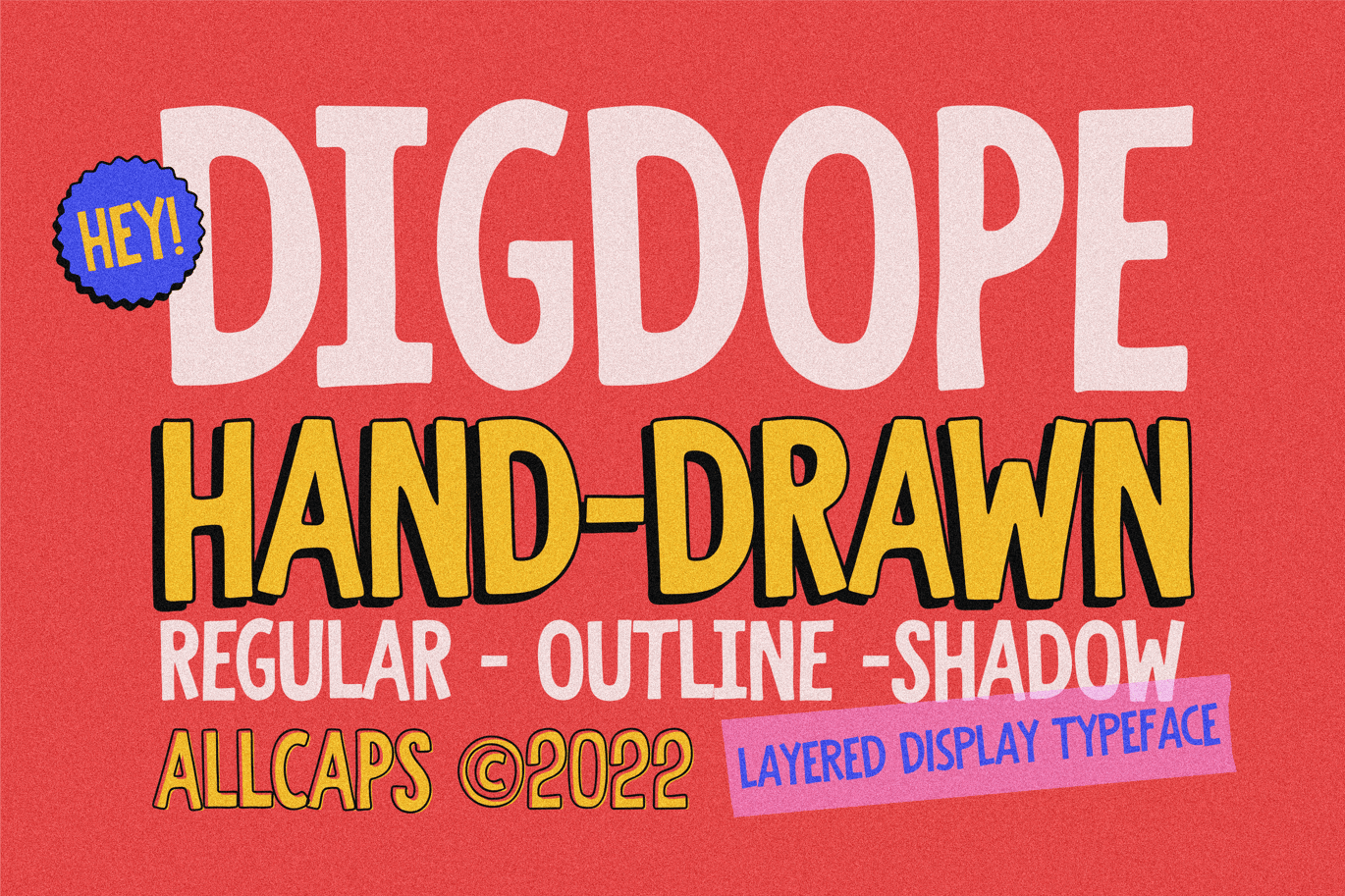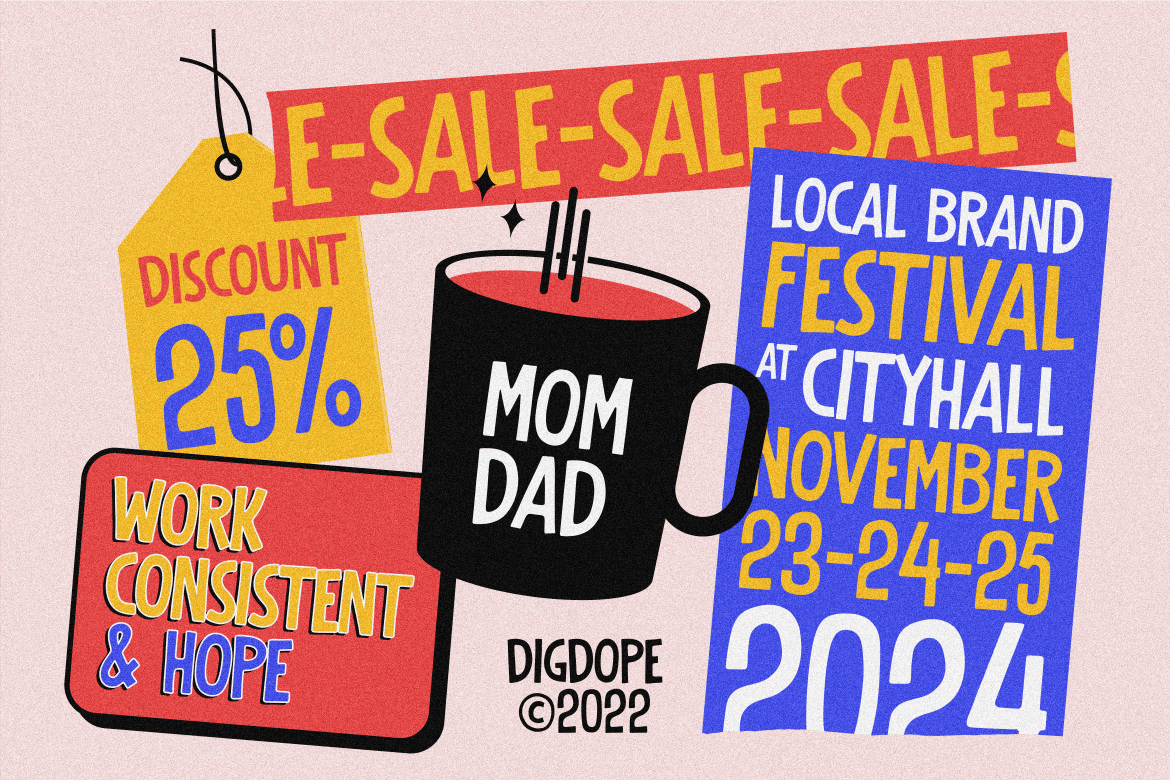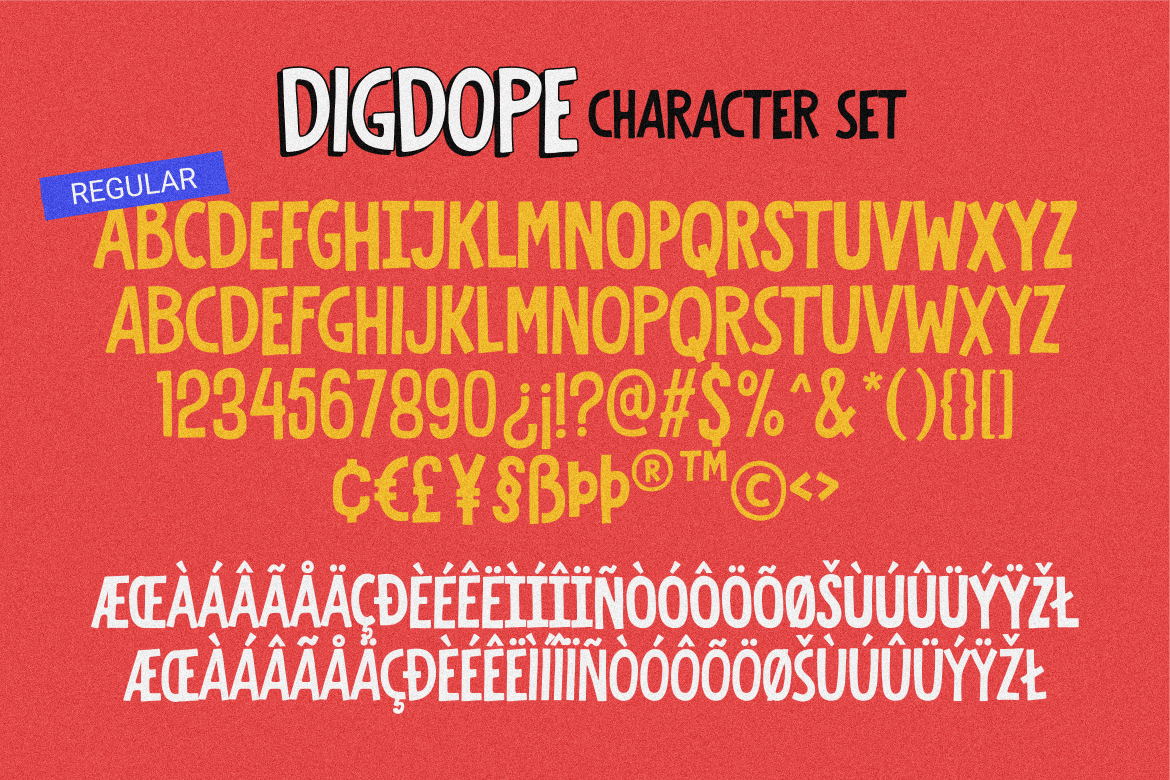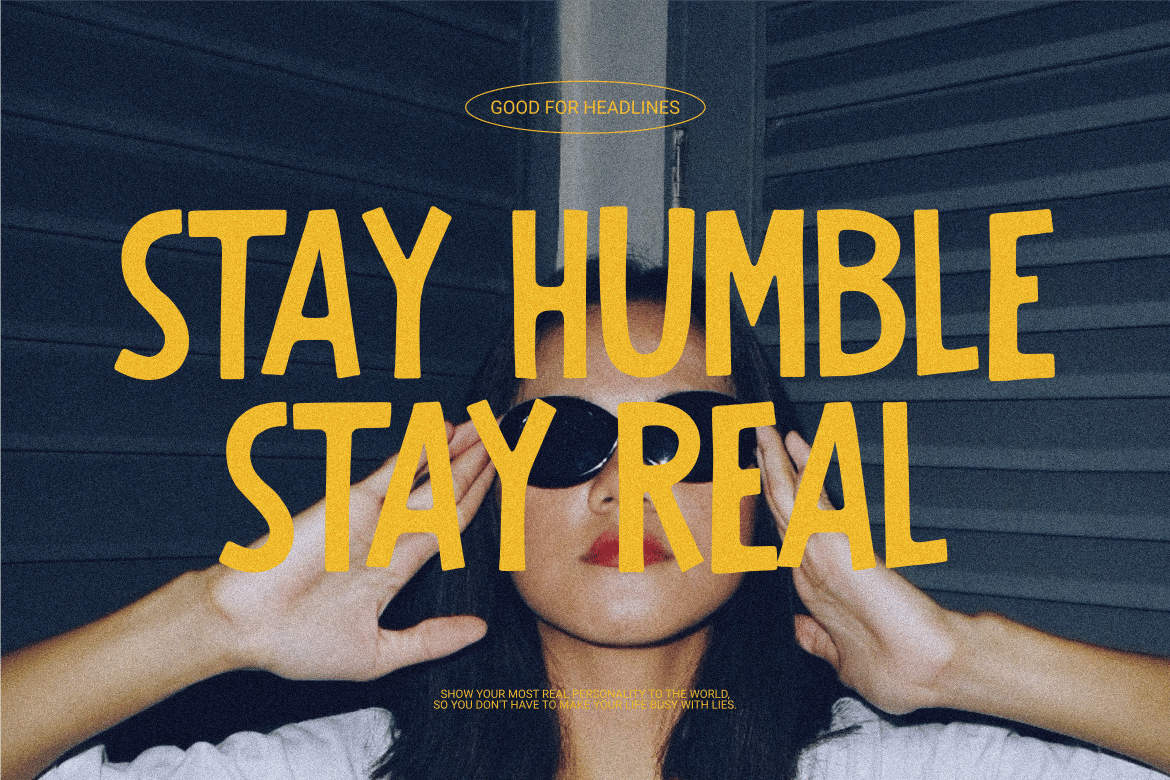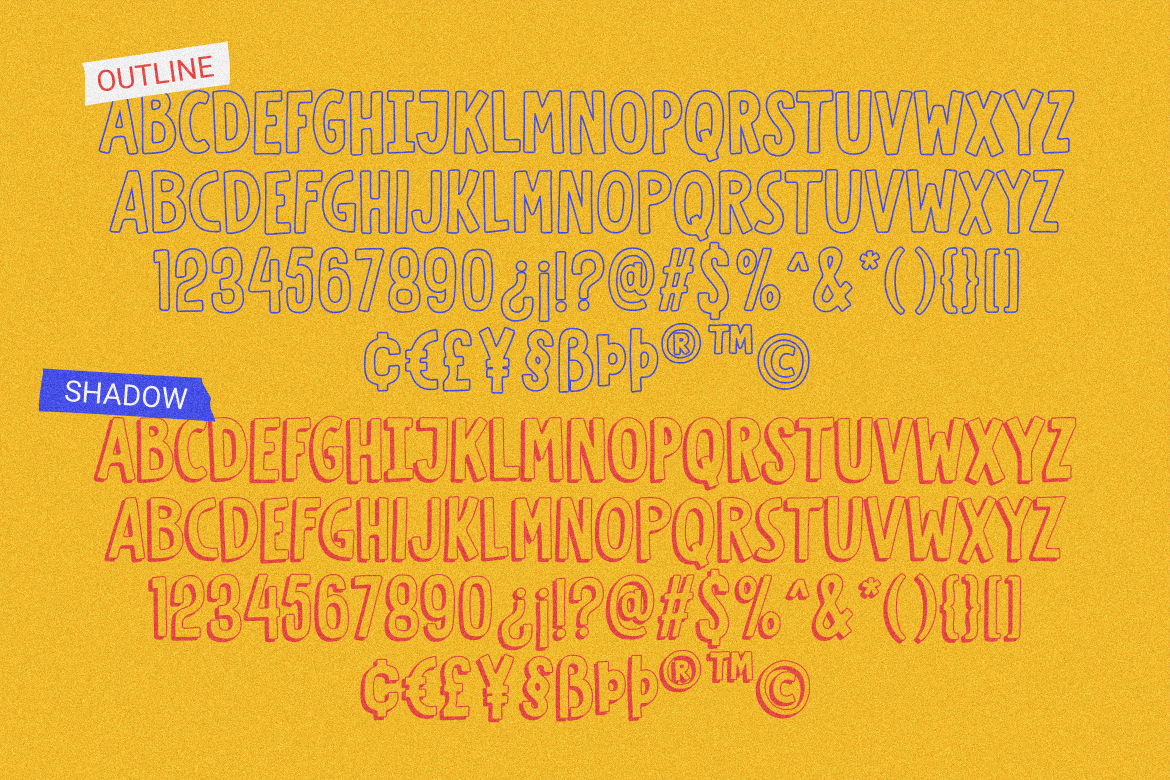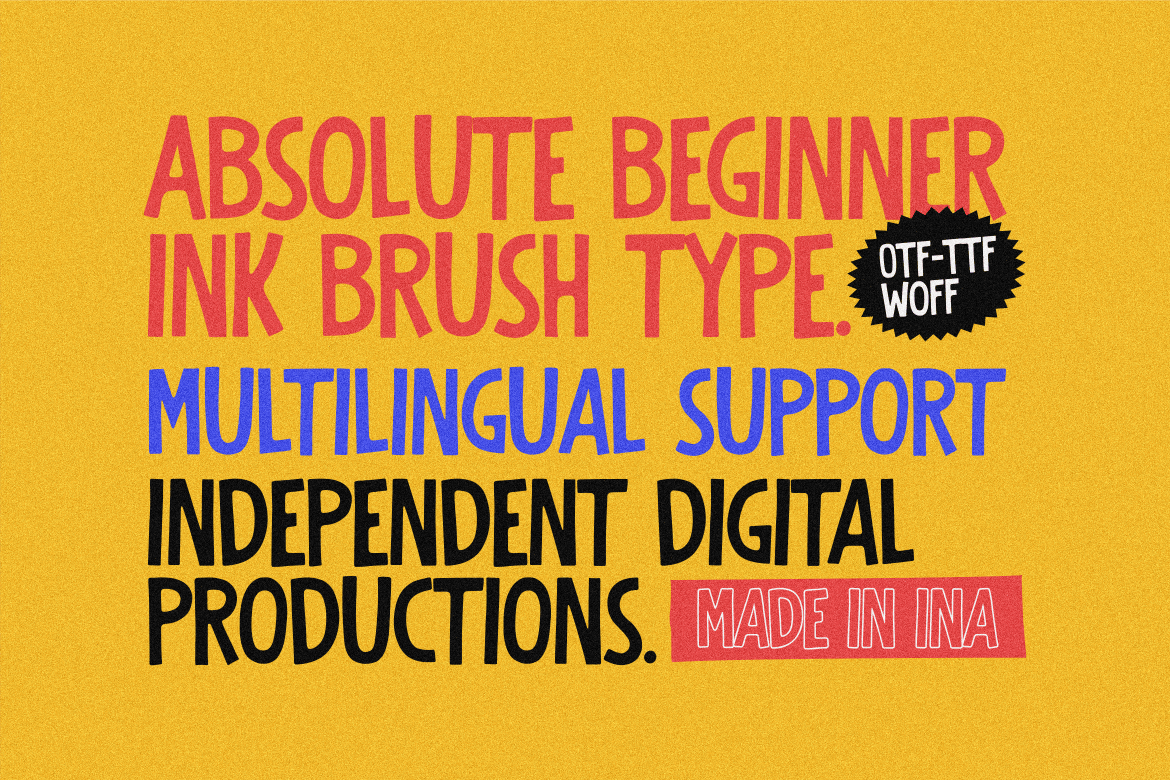
Digdope Typeface
Digdope is a fun and natural font like a handwritten sans font, so you will get a more realistic feel.
Digdope is a layered font available in three styles, REGULAR/NORMAL, OUTLINE &, SHADOW.
Perfect for branding, logos, posters, quotes, headlines, movie titles, book titles, and other designs.